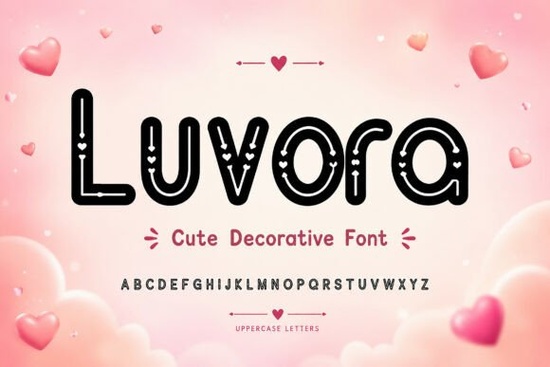
When you need a typeface that instantly communicates warmth and affection, finding the right style matters. The Luvora Font is a charming and playful decorative option designed to bring sweetness and creativity to various projects. Featuring rounded letterforms with adorable heart-inspired details, this typeface delivers a fun and friendly personality that stands out without being too loud. It is particularly well-suited for designers and crafters who want to add a touch of joy to their work, whether for digital graphics or physical products.
This specific style works best when the goal is to evoke feelings of love, care, or childhood nostalgia. Because of its unique decorative elements, it captures attention quickly, making it a strong choice for headlines and short phrases rather than long body text. If you are looking for something that feels cheerful and memorable, this tool fits the bill nicely.
What kind of projects work best with this style?
Choosing the right font depends heavily on what you are creating. Since this typeface has a distinct personality, it shines in specific contexts where emotion plays a big role. Here are some of the most effective use cases:
- Valentine's Day Designs: The heart details make it a natural fit for romantic cards and social media posts.
- Kids' Branding: Rounded letters feel safe and approachable for children's products or nursery decor.
- Greeting Cards and Invitations: Perfect for birthdays, baby showers, or any event celebrating love.
- Print-on-Demand Items: Looks great on t-shirts, mugs, and stickers where visual impact is key.
- Packaging: Adds a handmade feel to labels for handmade soaps, candies, or gifts.
When you apply this style to physical products like mugs or shirts, ensure the size is large enough for the heart details to remain visible. Small scales might lose the decorative nuances that make the design special. If you are exploring similar options, you might want to browse more options in this decorative category to see how different weights and styles compare.
How do you pair this with other typefaces?
Decorative fonts often need a partner to balance the design. Because Luvora is quite detailed, pairing it with a simple sans-serif or a clean serif font creates a nice contrast. You want the secondary font to handle the informational text while the decorative one handles the emotional hook.
For example, if you are designing a wedding invitation, use this font for the couple's names and a simple, thin font for the date and location details. This hierarchy guides the reader's eye naturally. Avoid pairing it with another highly decorative script, as this can make the design look cluttered and hard to read. Keeping the rest of the layout minimal allows the unique character shapes to breathe.
What should you consider before downloading?
Before adding any new typeface to your library, think about readability and versatility. While the heart details are cute, they can reduce legibility at very small sizes. Test your designs at 100% scale to ensure the characters are distinct. Also, consider the color contrast. This font works well in pastels, reds, and pinks, but it can also hold its own in bold black or dark blue against a light background.
Another factor is the platform you are using. Most modern design software supports standard font files, but if you are working on a web project, check if the font format is web-ready. For crafters using cutting machines, ensure the kerning is adjusted so the connected details or close letters do not overlap unintentionally.
Quick Design Checklist
To get the best results with this typeface, follow these practical steps before finalizing your project:
- Check Legibility: View your design from a distance to ensure the text is easy to read.
- Adjust Kerning: Manually tweak the space between letters if the heart details clash.
- Limit Usage: Use for headlines or short phrases rather than long paragraphs.
- Test Colors: Try different color combinations to see which highlights the decorative elements best.
Taking these small steps ensures your final output looks professional and polished. By focusing on where the font adds the most value, you can create designs that feel personal and engaging without sacrificing clarity.